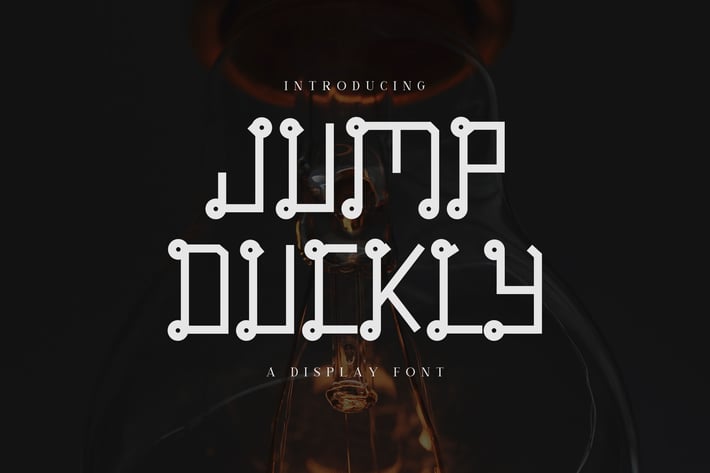
Jump Duckly - Display Line Font
Jump Duckly is a decorate display font. This font looks modern, sci-fi, futuristic, future, readable, stylish, catchy and easy to use.
This font is the best choice for your professional design projects, including : logo, poster design, t-shirt, headline, flyer, cd cover album, quotes, business card, branding, magazines, social media, advertisements, product designs, or something that need modern or futuristic looks.
- The perfect font choice for powerful projects: watermarks, signatures, photography, logos, business cards, quotes, album covers.